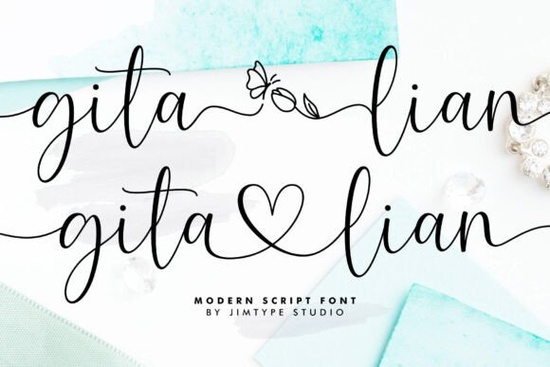
If you're looking for a wedding font that feels personal, graceful, and quietly romantic without being overly ornate or hard to read Gita Lian Font is worth your attention. It’s designed with soft script swashes and subtle heart-shaped connections between letters, making it especially well-suited for invitations, vow books, monogrammed napkins, or even boutique wedding branding. Unlike some script fonts that sacrifice legibility for flair, Gita Lian balances elegance with clarity, so your text stays readable at smaller sizes and in print.
When does Gita Lian Font work best?
This font shines in contexts where warmth and intention matter most. Think: hand-lettered-style wedding stationery, small-batch greeting cards, custom wall art for newlyweds, or minimalist logo marks for wedding planners and florists. It’s also popular among print-on-demand sellers creating digital downloads especially those targeting couples who prefer refined, non-trendy aesthetics over flashy or ultra-modern looks.
Because it includes both uppercase and lowercase characters plus ligatures and alternate swashes, you can adjust tone easily. Use the standard set for clean, gentle headlines; switch to swash variants for a single word like “forever” or “love” to add quiet emphasis. It’s not meant for body text or long paragraphs but then, few script fonts are. That’s fine. Its strength lies in moments of meaning, not mass communication.
How does it compare to other popular script fonts?
Like Summer Beach Font, Gita Lian leans into relaxed romance but with more structure and less casual bounce. If you’ve used Bardguine Serif Script Duo, you’ll notice Gita Lian skips the serif contrast entirely, opting instead for smooth, consistent line weight and softer terminals. It’s gentler than American Route Font, which carries a bolder, vintage-poster energy, and less playful than Frisky Cat Font, which thrives in whimsical or illustrated layouts.
For designers who love heart motifs but want subtlety over literalness, Magic Heart Font offers a different approach more decorative, with built-in heart glyphs as standalone elements. Gita Lian weaves the sentiment into the letterforms themselves, so the heart shape emerges only when letters connect. It’s quieter, more integrated, and often feels more mature or timeless.
Who should consider using it and who might want something else?
Small business owners building a cohesive brand voice around intimacy and care like wedding coordinators, calligraphers offering digital templates, or handmade soap makers crafting “love-themed” gift sets will find Gita Lian easy to pair with simple sans-serifs or light serifs for balance. Crafters who cut vinyl or engrave wood often appreciate how cleanly its curves translate to physical media.
That said, if your project needs bold contrast, strong personality, or multilingual support beyond Western European languages, you may want to explore alternatives. For example, if Cyrillic or Greek support is essential, this font won’t cover it. And while it’s lovely for elegant themes, it doesn’t suit high-energy events like beach parties or festivals where something like Gita Lian Font might feel too hushed.
- ✅ You need a script font for wedding-related or heartfelt design projects not technical documents or UI interfaces.
- ✅ Your audience values subtlety, craftsmanship, and emotional resonance over trendiness or loud visual impact.
- ❌ You don’t need extensive language support, variable weights, or extensive icon sets this is a focused, purpose-built script font.
If those match your needs, Gita Lian Font is a thoughtful, well-executed option one that works quietly but effectively, letting your message, not the typeface, take center stage.